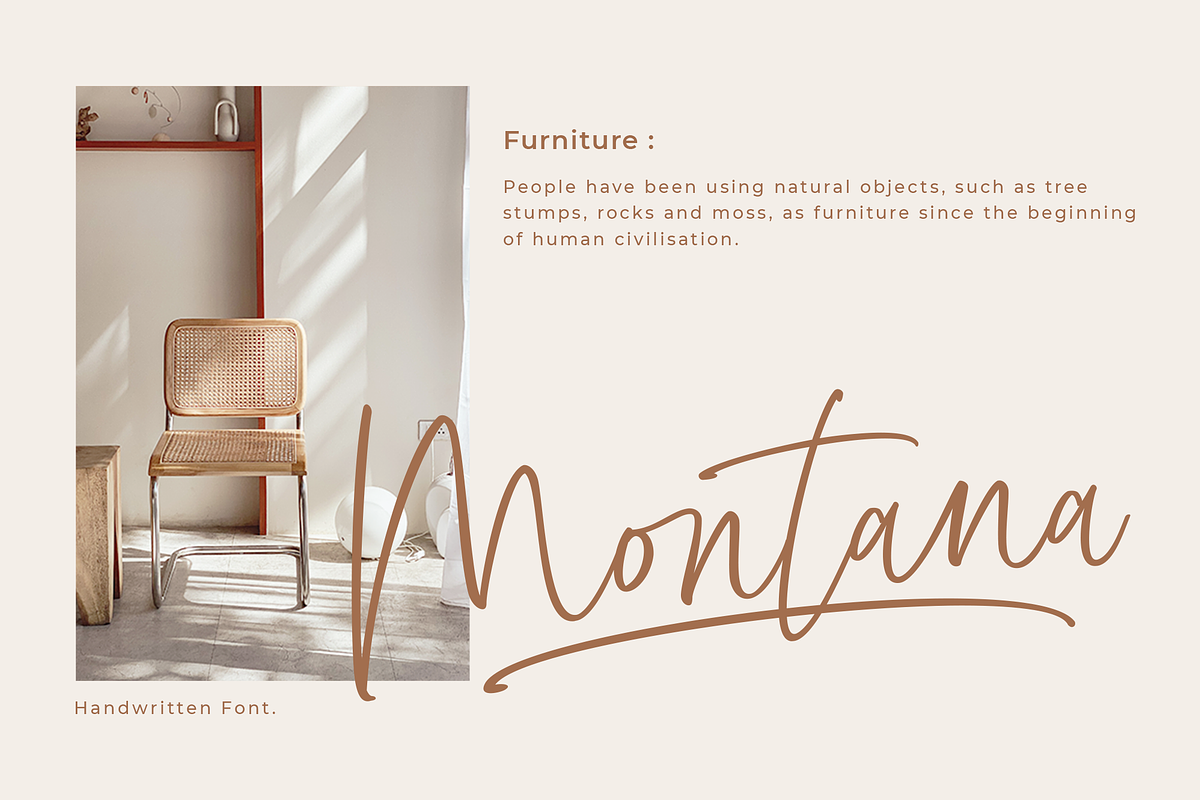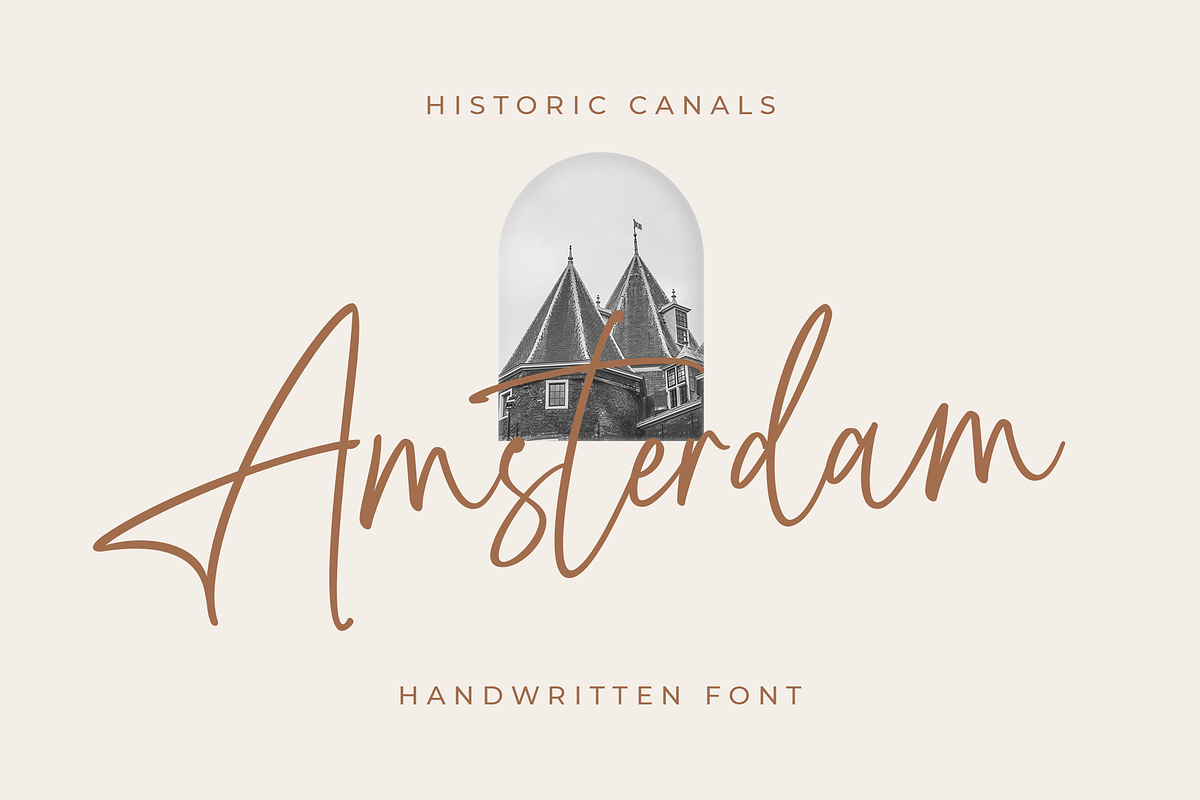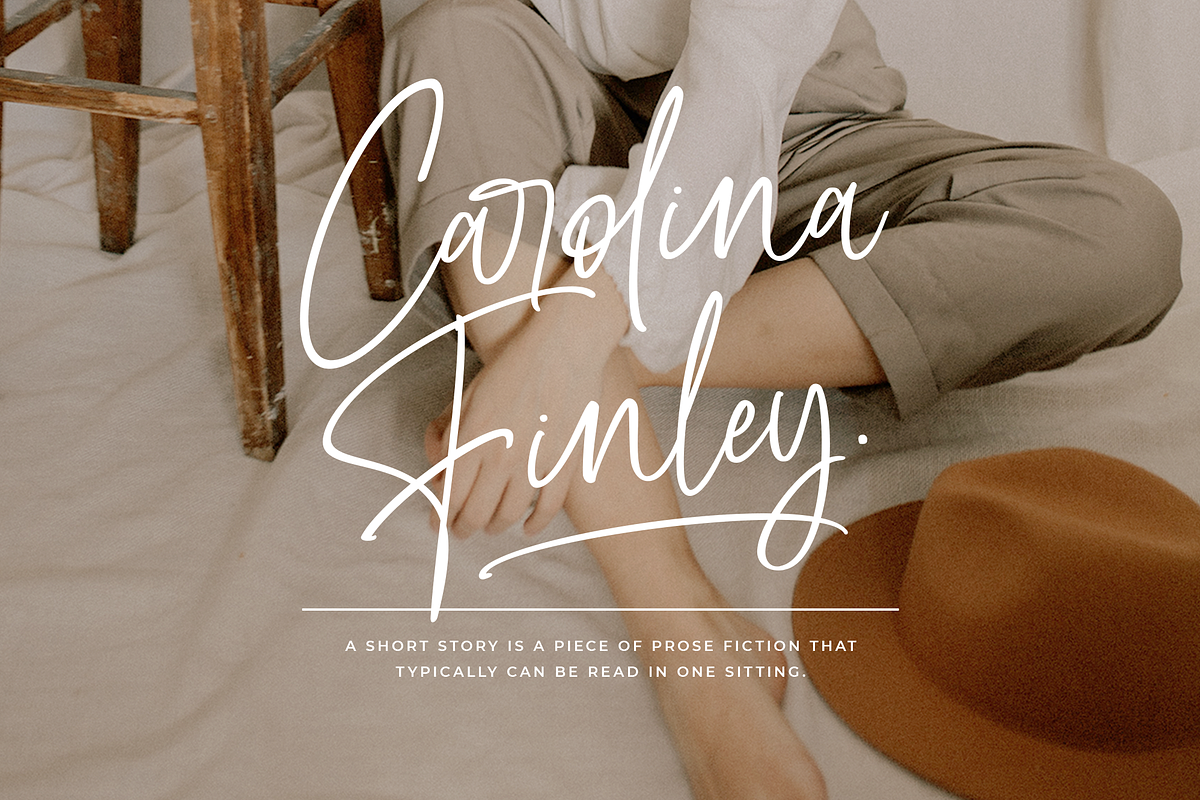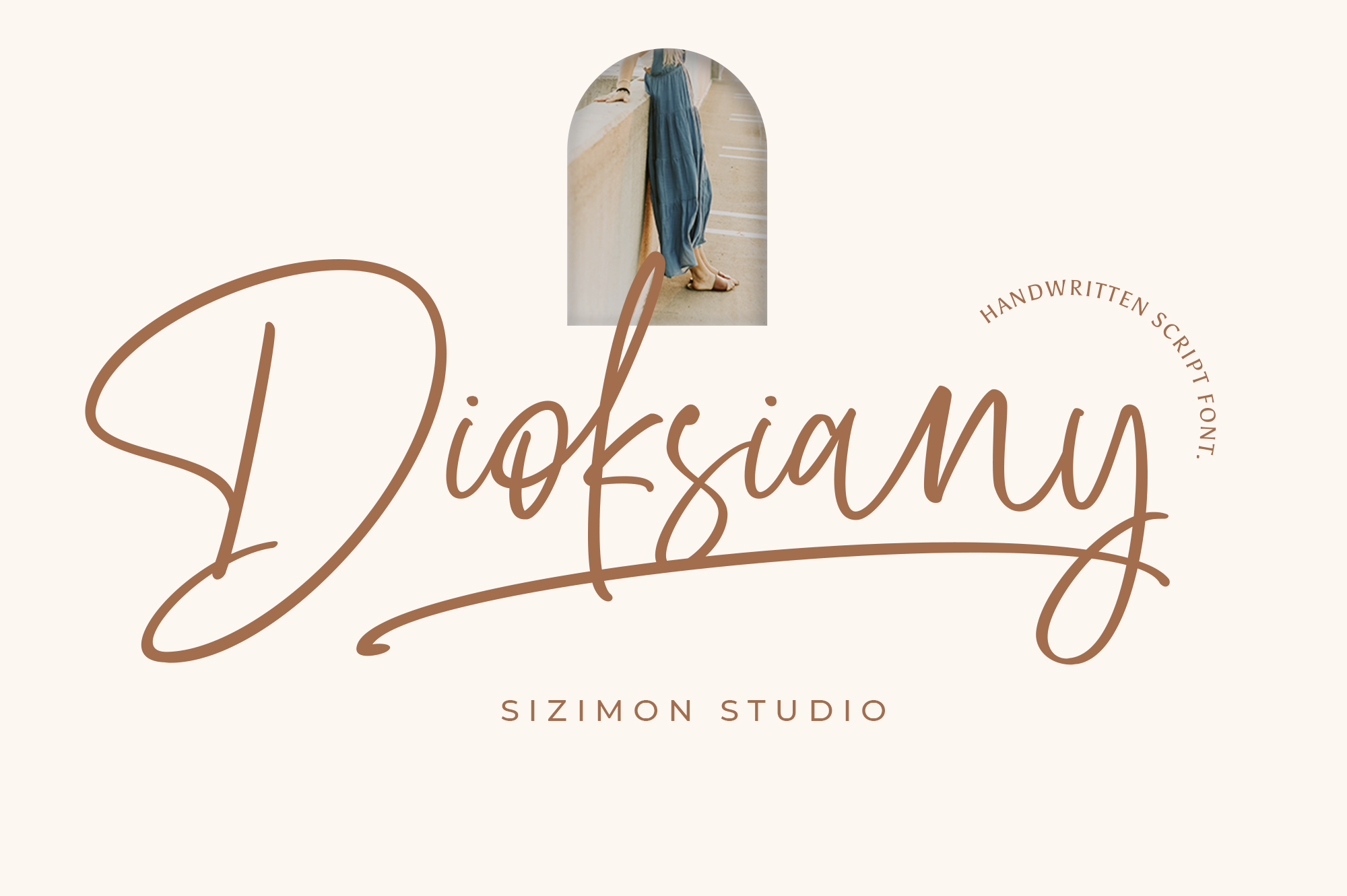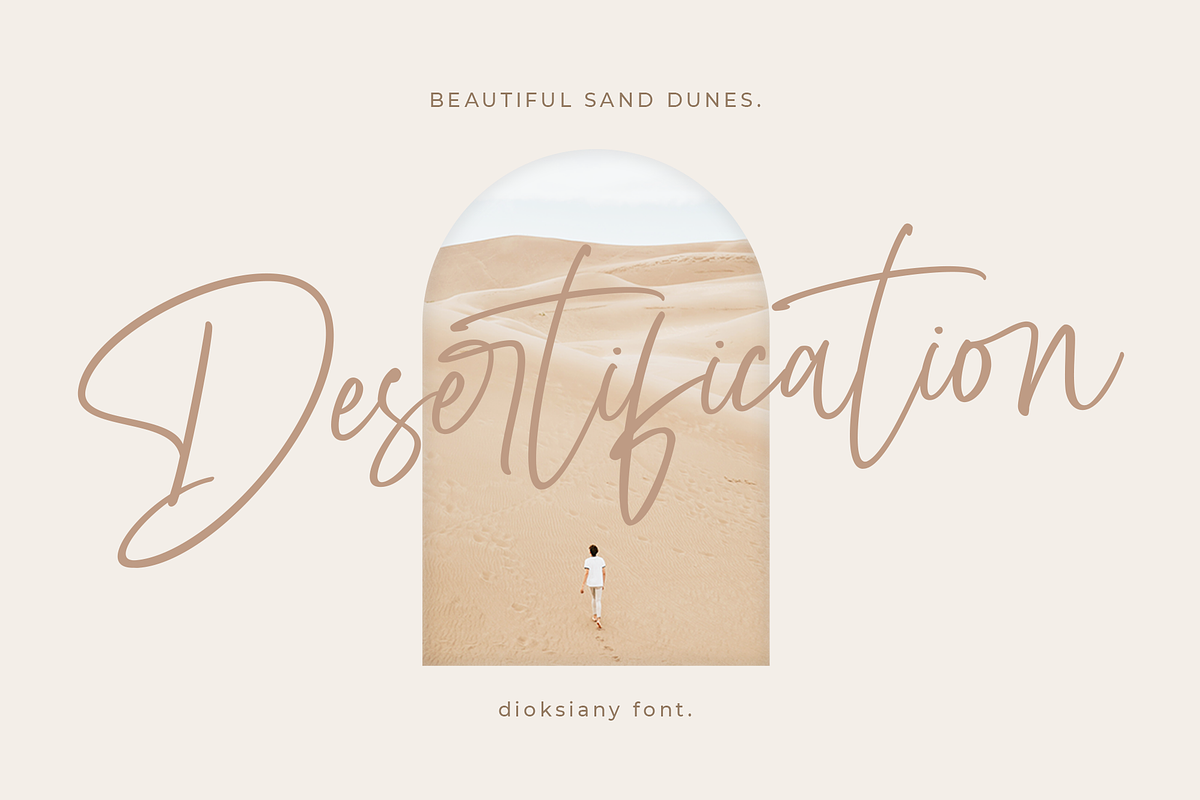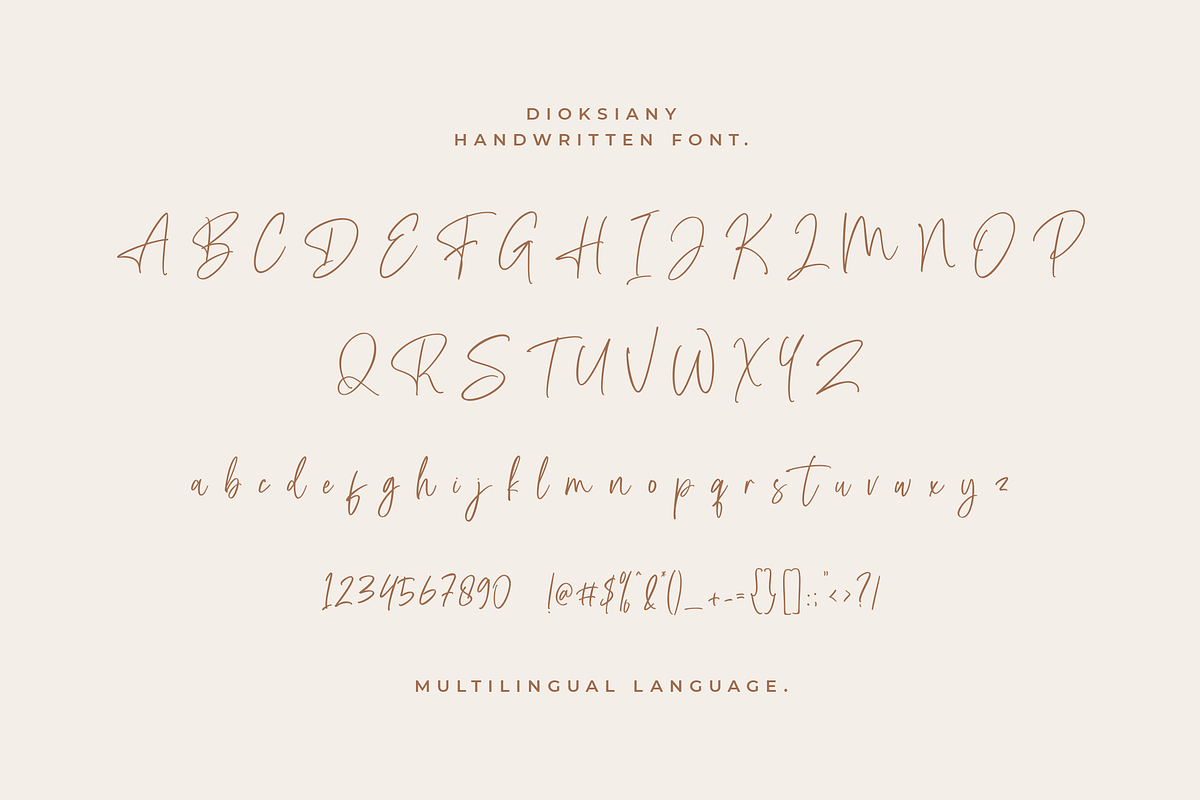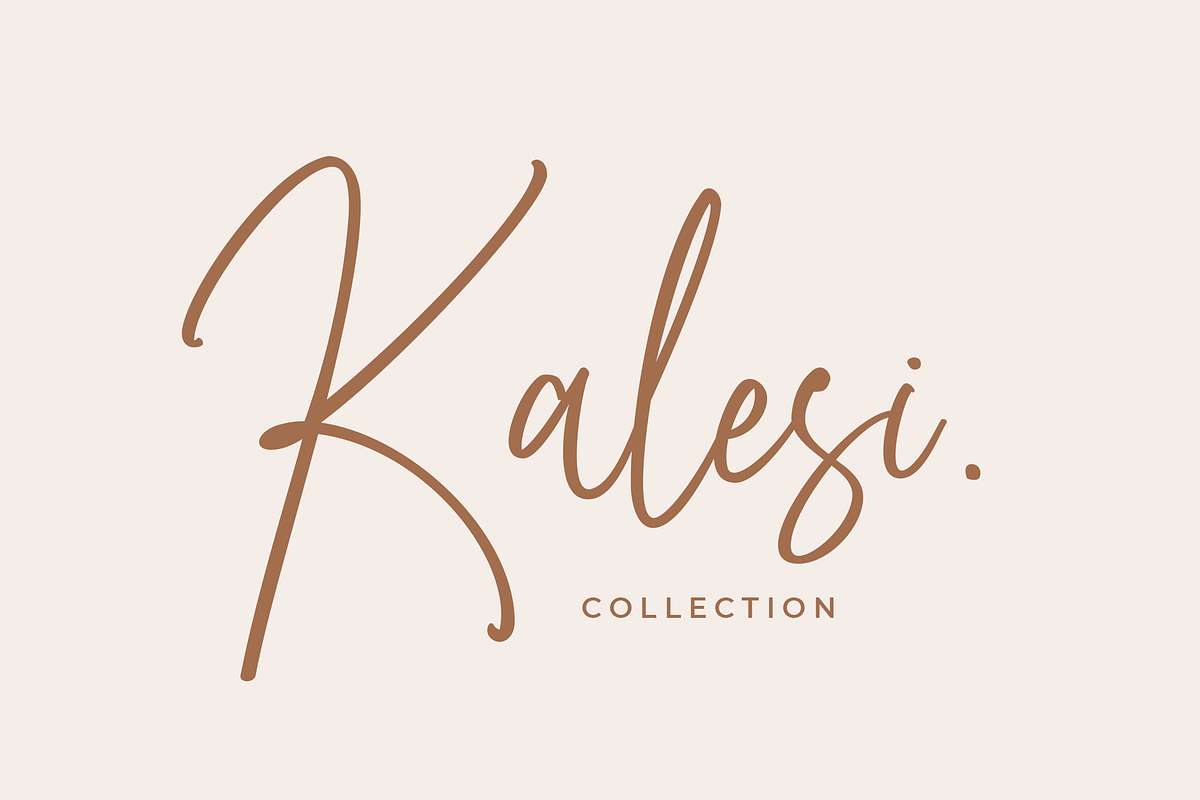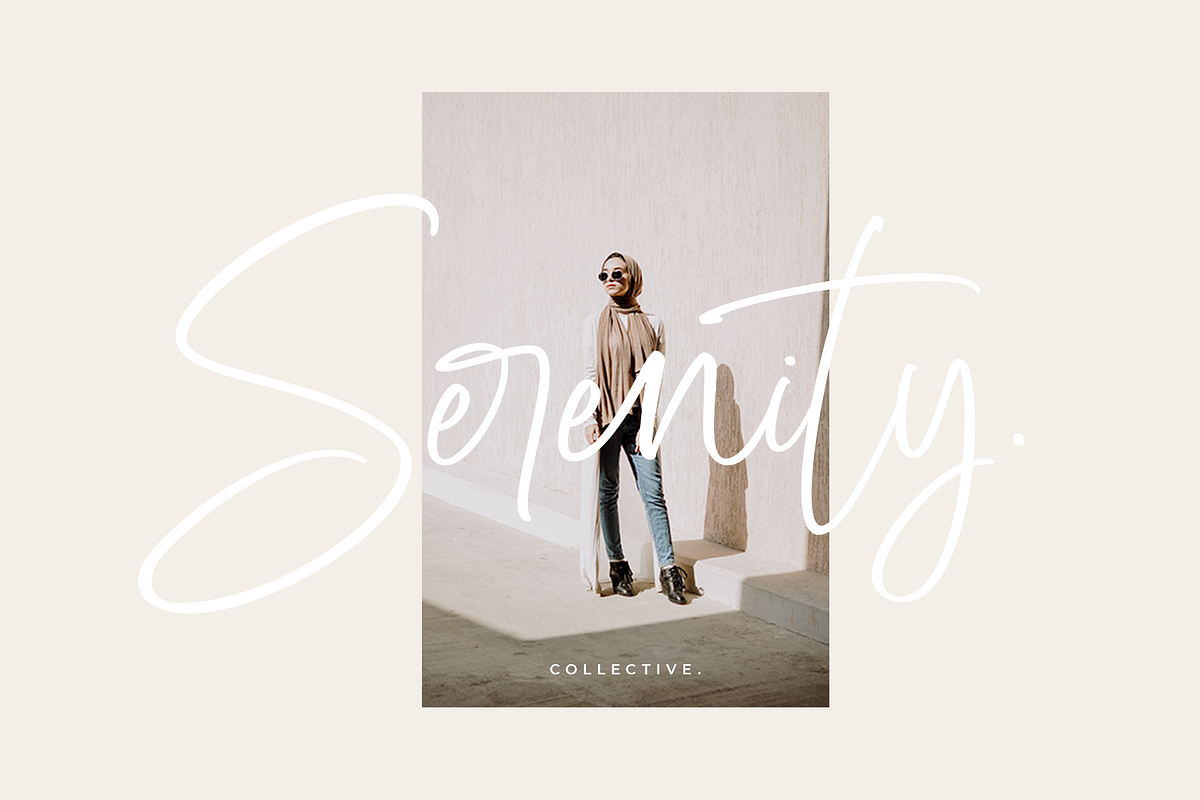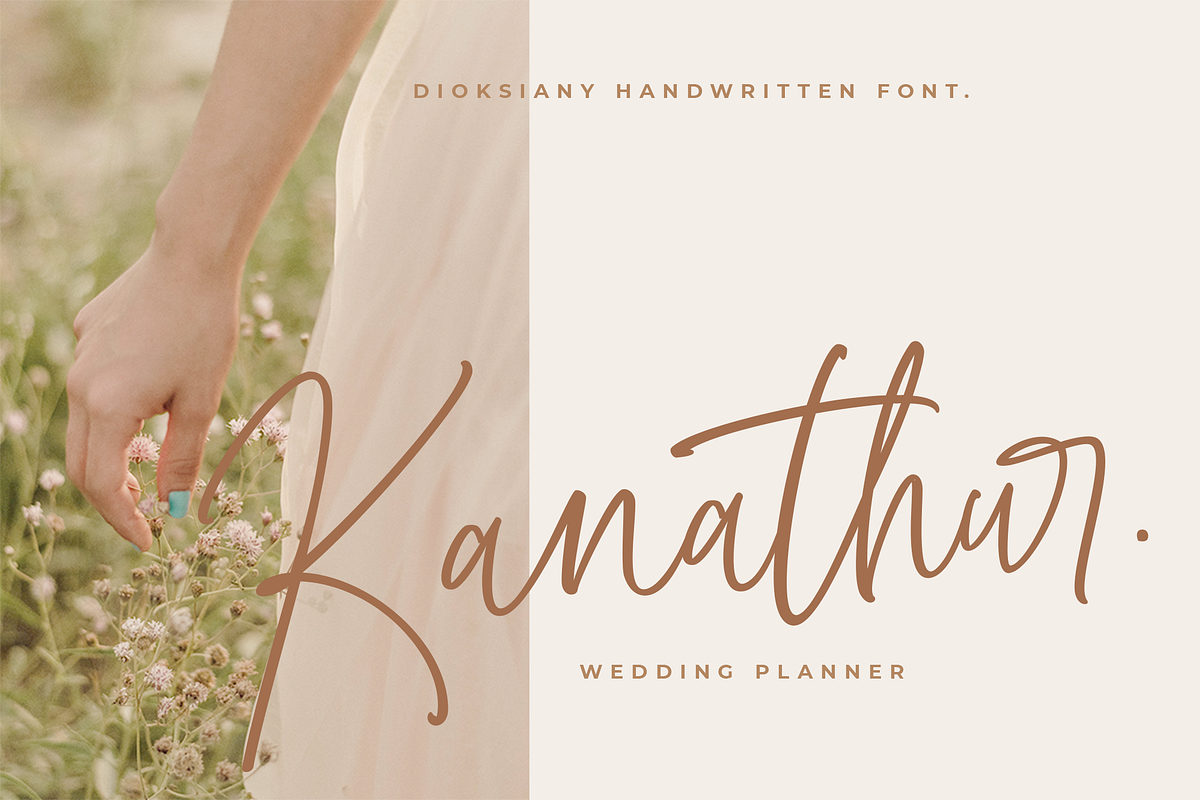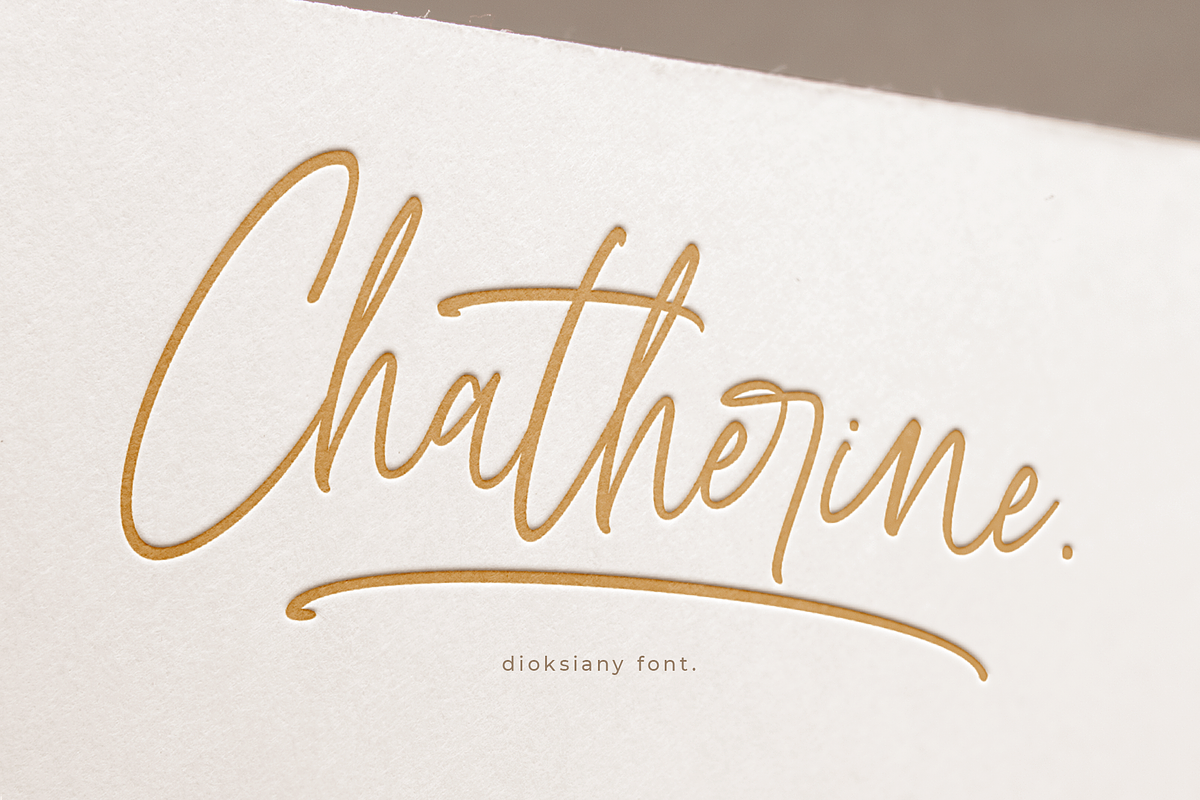
Dioksiany Font!
Introducing our new font the Dioksiany! Inspired by Sophisticated Fashion Style. Classy, contemporary paired font. It is free-flowing, fashionable, feminine, and friendly. Use the fonts for: logos, branding, wedding invitations, farmhouse decor, farmhouse signs, mugs, shirts, pantry labels, stickers, business cards, greeting cards, posters, social media, planner prints and websites.